Father’s Day Fonts: Designing for Dad? Whether it’s a beer label, BBQ invite, bold T-shirt, or greeting card – the right font brings masculine, rustic, or vintage flair. Below, you’ll find strong display fonts, engraved serifs, and modern typefaces perfect for gifts and printables.
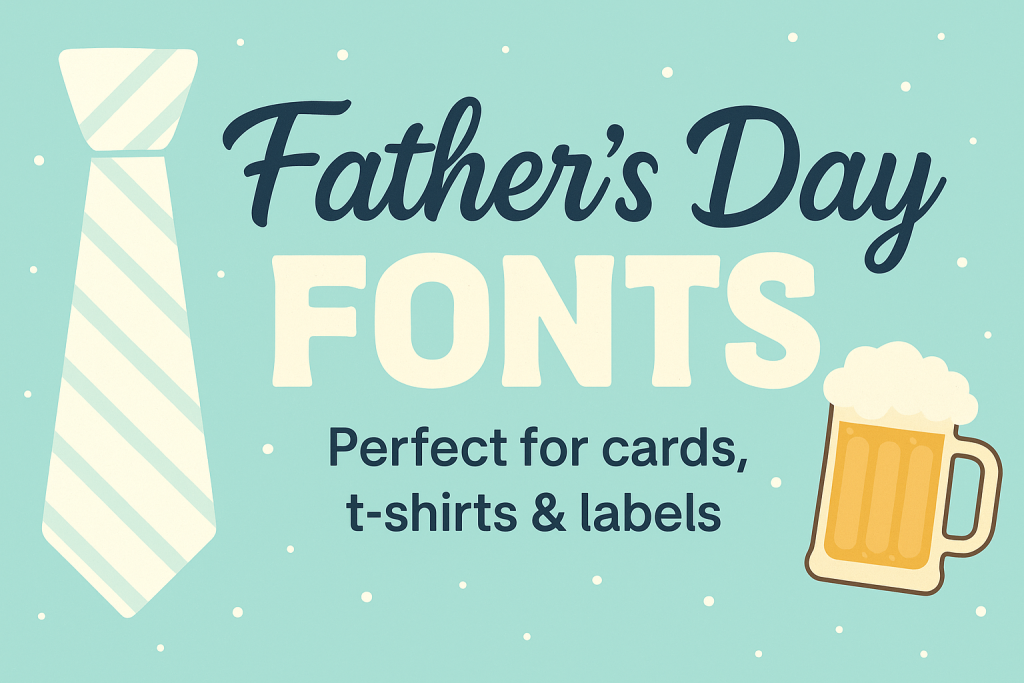
Creative Ways to Use Father’s Day Fonts in Your Projects
- T-shirt slogans and graphic tees – Add fun or emotional phrases like “Best Dad Ever,” “Grill Master,” or “#1 Papa” with bold or vintage fonts.
- Beer, whiskey, or soda label mockups – Use masculine or retro font styles to create authentic-looking bottle labels.
- BBQ invitations and restaurant-style menus – Perfect for Father’s Day cookouts, backyard events, or themed parties.
- Custom mug and tumbler designs – Great for Cricut or laser cutting machines to personalize gifts with strong, clean typography.
- Printable Father’s Day cards and gift tags – Pair handwritten or serif fonts for professional and emotional effects.
- Wood or leather engraving templates – Ideal for engraving heartfelt messages using serif, stencil, or rustic font styles.
- Scrapbooking titles and printable wall art – Highlight quotes, dates, or personal messages using display fonts that stand out.
These use cases help you make the most out of Father’s Day fonts whether you’re designing for print-on-demand products, creating handmade gifts, or selling digital downloads.
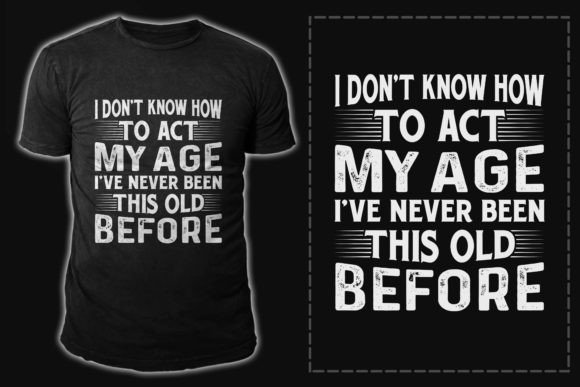
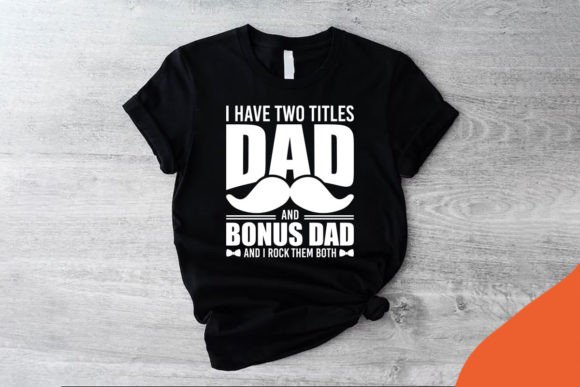
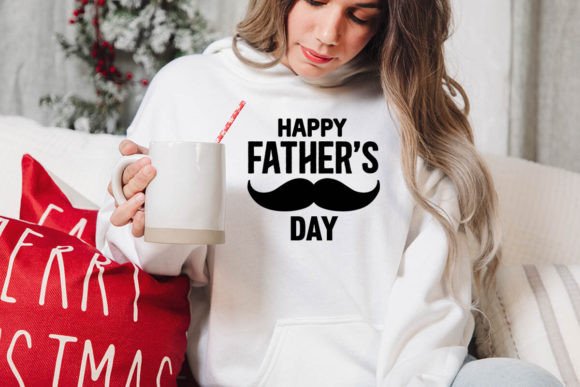
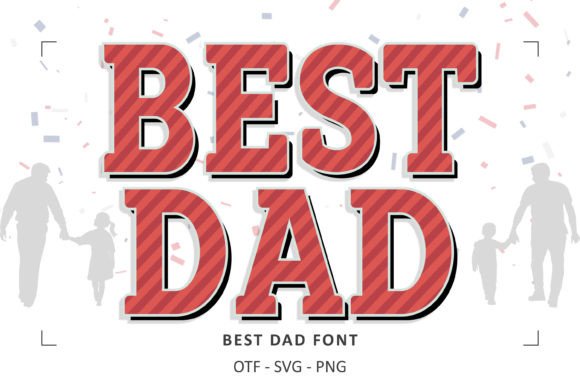
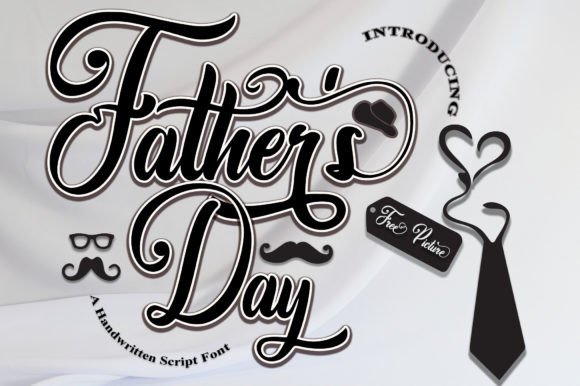
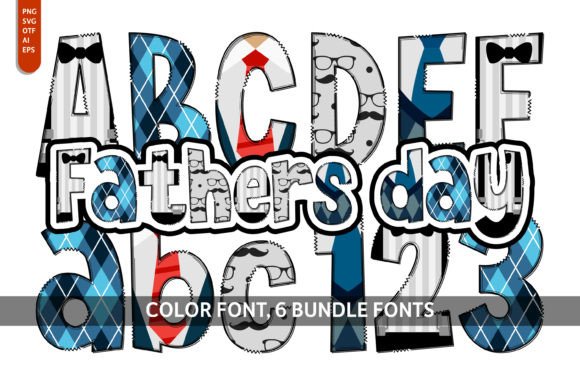
Font Pairing Recipes for Dad-Themed Projects
Here are some stylish combos that work great in Father’s Day designs:
| Use Case | Primary Font | Accent Font |
|---|---|---|
| BBQ Apron Design | Slab Serif (e.g. Ironhead) | Narrow Sans (e.g. Intro Rust) |
| Beer Label or Whiskey Tag | Vintage Engraved (e.g. Oldgrowth) | Cursive Signature (e.g. The Brewer) |
| Card from Kids | Comic Sans or Crayon Font | Doodle Icons |
| Wall Art or Poster | All-Caps Display (e.g. Lumberjack) | Brush Script (e.g. Stay Outside) |
Design Tips for Father’s Day Vibes
- Stick to dark color palettes: navy, charcoal, hunter green, burnt orange
- Add textures: woodgrain backgrounds, metal overlays, or paper creases
- Use caps lock for impact: especially for bold dad quotes
- Pair with vector graphics: tools, grills, ties, mustaches, beer mugs
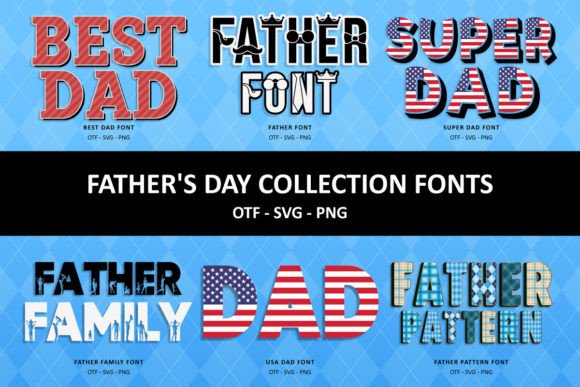
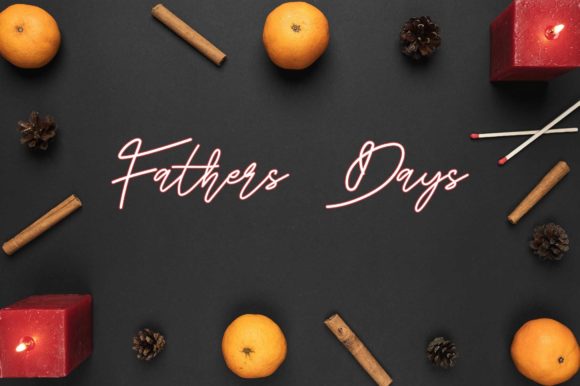
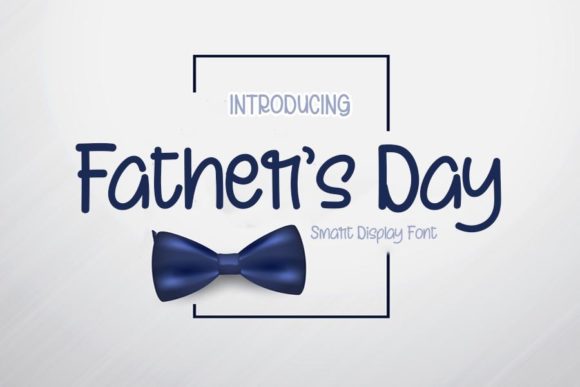
FAQ Father’s Day Fonts
Strong serif or retro slab fonts tend to give the most masculine, grounded feel. They’re ideal for engraved gifts or rustic layouts.